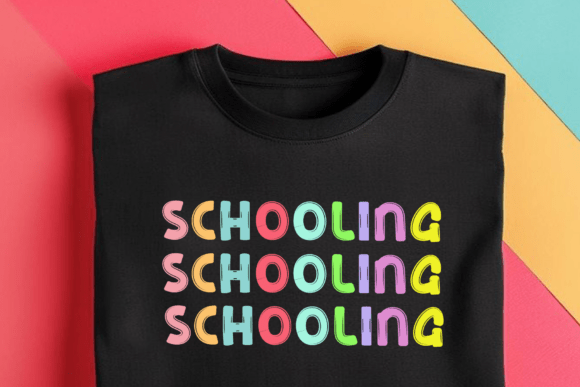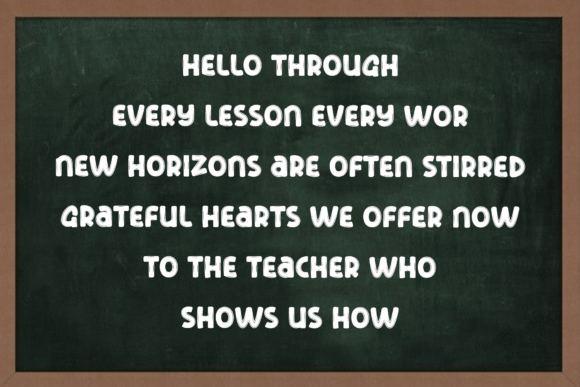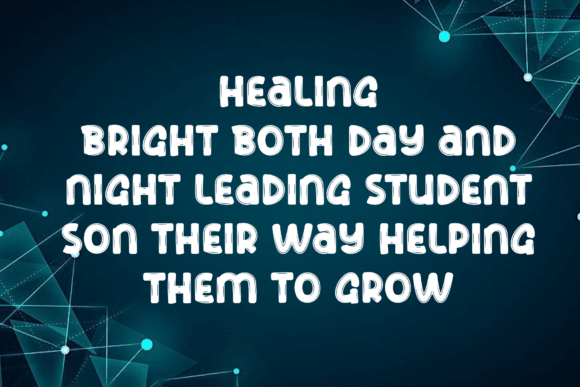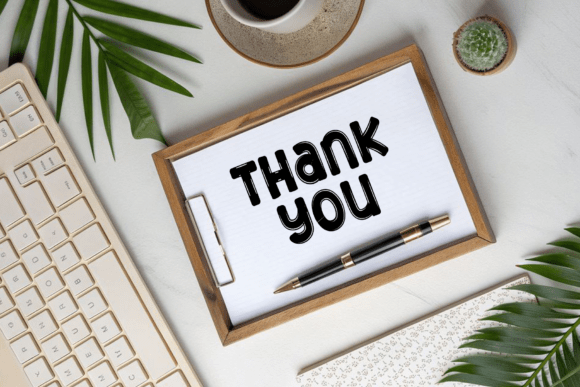
Introducing Happy Family Font: The Ultimate Choice for Community-Focused Branding
Are you a designer or crafter looking for a font that embodies warmth, approachability, and modern simplicity? Look no further than Happy Family Font, an ultra-bold and charming display font that’s perfect for community-focused branding, children’s apparel, celebratory event signage, and cheerful social media headers.
What Makes Happy Family Font So Special?
Happy Family Font boasts a unique and distinctive design that sets it apart from other fonts. Its massive, rounded letterforms feature a consistent, thick stroke weight and soft, “puffy” silhouettes that give it a friendly and approachable feel. This font is designed to evoke a sense of happiness and community, making it an excellent choice for projects that aim to bring people together.
Key Features of Happy Family Font
- Ultra-bold and approachable design: Happy Family Font is perfect for making a statement and grabbing attention.
- Modern simple aesthetic: This font features a clean and minimalist design that’s perfect for modern branding and design projects.
- Consistent, thick stroke weight: The font’s bold and consistent stroke weight gives it a strong and confident look.
- Soft, “puffy” silhouettes: The soft and rounded silhouettes of the letterforms add a touch of warmth and friendliness to the font.
Perfect for Community-Focused Branding
Happy Family Font is an excellent choice for community-focused branding projects, such as:
- Children’s apparel and toys
- Celebratory event signage (e.g., birthday parties, weddings, and festivals)
- Cheerful social media headers and graphics
- Non-profit organizations and charity events
- Family-friendly businesses and services
Why Choose Happy Family Font?
There are many reasons why Happy Family Font stands out from other fonts:
- Unique and memorable design: Happy Family Font is sure to leave a lasting impression on your audience.
- Versatile and adaptable: This font can be used for a wide range of projects, from digital designs to print materials.
- Easy to read and understand: The font’s bold and clear design makes it easy to read, even at large sizes.
- Perfect for creative projects: Happy Family Font is ideal for designers and crafters who want to add a touch of personality and whimsy to their work.
How to Use Happy Family Font
Happy Family Font can be used for a variety of design projects, including:
- Digital designs: Use Happy Family Font to create eye-catching social media graphics, blog headers, and website titles.
- Print materials: This font is perfect for designing posters, flyers, brochures, and other print materials.
- Crafting and DIY projects: Happy Family Font can be used for handmade cards, scrapbooking, and other craft projects.
Happy Family Font is a unique and versatile font that’s perfect for designers and crafters who want to add a touch of warmth and approachability to their projects. With its ultra-bold and modern simple design, this font is sure to make a statement and leave a lasting impression on your audience. Whether you’re working on a community-focused branding project, children’s apparel, or celebratory event signage, Happy Family Font is an excellent choice.